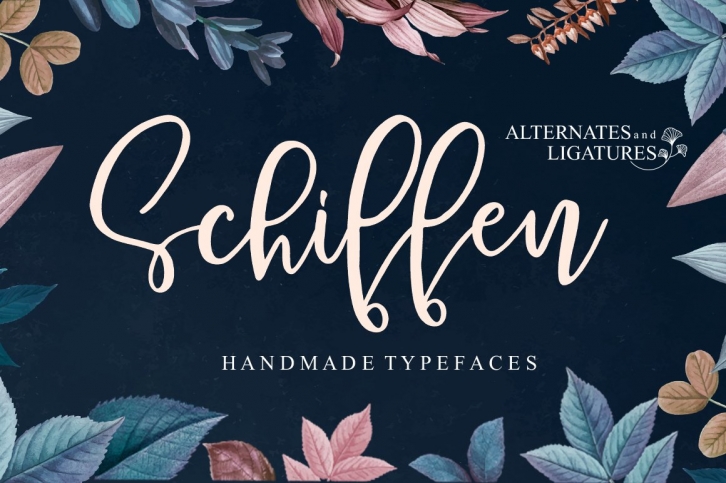
Schiffen Script is a trendy and unique font with an authentic style. It was designed by Youngtype and it's a great choice for creative people who need such a font. It was released on April 19, 2020 and the file size is 10.41 MB. Schiffen Script will add an organic vibe to any design idea!